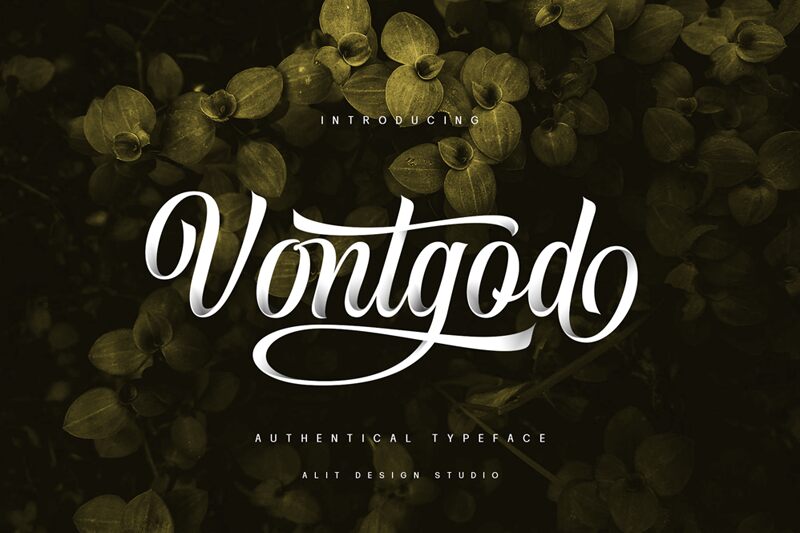
Vontgod, a mesmerizing calligraphy font by Alit Design, adds an elegant touch to any project. With its semi-light weight and condensed width, this font exudes sophistication and refinement. Perfect for wedding invitations, branding materials, or high-end fashion magazines, Vontgod effortlessly elevates your designs to the next level. Embrace the graceful curves and flowing lines of this exquisite typeface to create stunning logos, luxurious packaging, or captivating social media posts. Let Vontgod's unique charm infuse your projects with an air of timeless beauty and class.
Vontgod